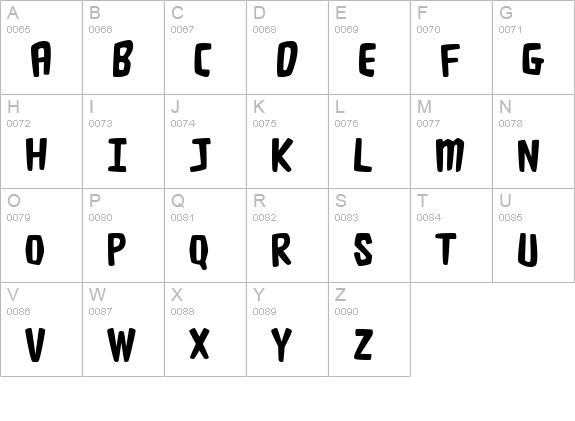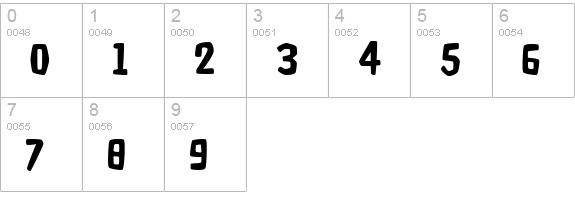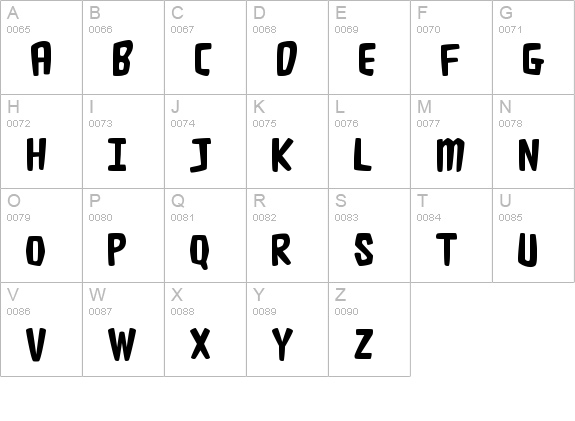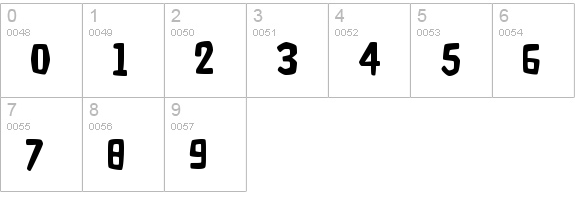
Fluffy Slacks BTN Font Details
Fluffy Slacks BTN font is a charming and playful typeface that exudes a sense of whimsy and fun. Its rounded edges and soft curves give it a cheerful and friendly appearance, making it perfect for a variety of creative projects. This delightful font is freely available to download at FontsMarket.com, allowing you to add a touch of personality and warmth to your designs without any cost. Whether you're working on a poster, invitation, or branding project, Fluffy Slacks BTN font is sure to bring a touch of joy and creativity to your work. With its bubbly and inviting aesthetic, Fluffy Slacks BTN font is versatile enough to be used in a wide range of design applications. Its legible yet unique style makes it a great choice for headlines, logos, and other display text, helping your message stand out and capture the attention of your audience. Download Fluffy Slacks BTN font today from FontsMarket.com and let your creativity soar with this delightful and free typeface that is sure to add a touch of whimsy to your designs.